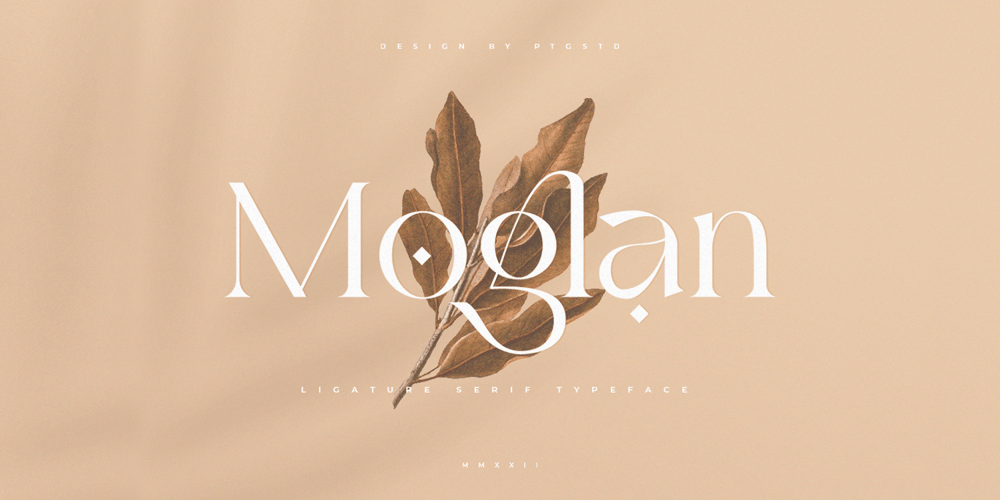
Moglan Font Family was designed by Burhan Adiatma and published by pentagonistudio. Moglan contains 1 styles and family package options. Moglan Is An Modern Ligature Serif Font Inspired By Modern Serif Typeface.SOFTWARE REQUIREMENTS :Fonts and alternate : No special software required they may be used in any basic program /website apps that allows standard fonts That’s it folks! You can go ahead and get cracking :)Follow My Shop For Upcoming Updates Including Additional Glyphs And Language Support. And Please Message Me If You Want Your Language Included or If There Are Any Features or Glyph Requests, Feel Free to Send me A Message. Have a Good Day !